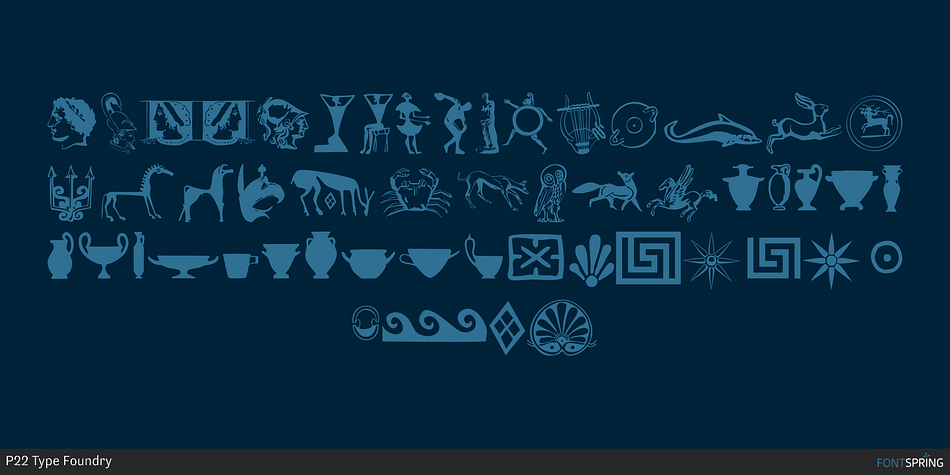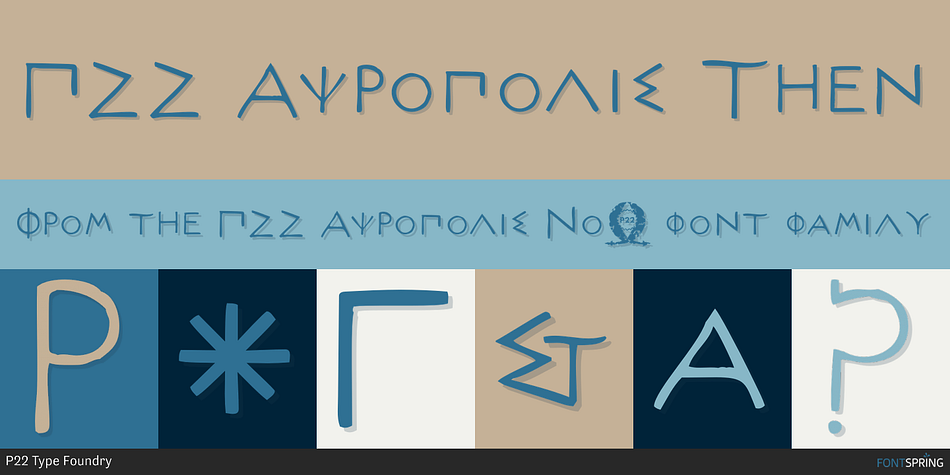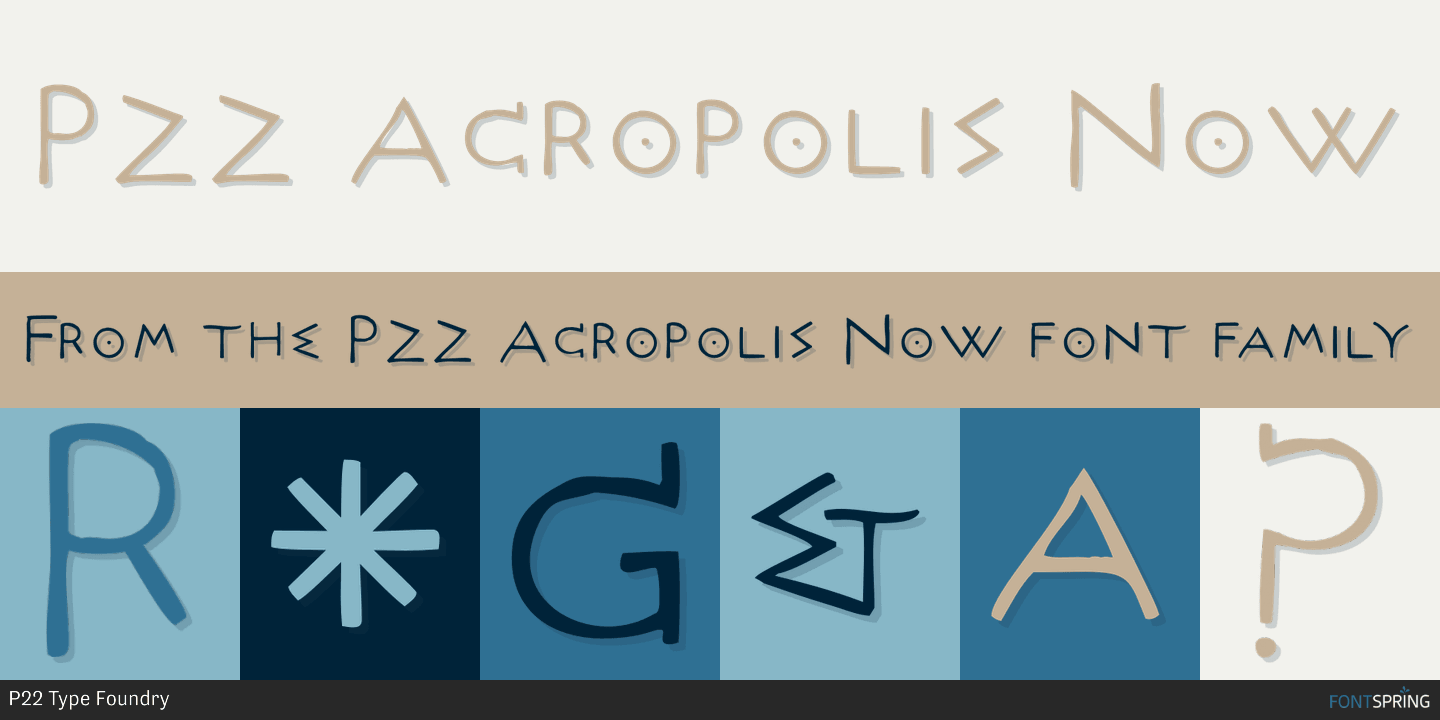
P22 Acropolis Now is a dingbat, novelty and foreign font family. This typeface has three styles and was published by P22 Type Foundry.
P22 Acropolis Now is P22’s tribute to the enduring contribution of Classical Greece to world culture. This set features two typefaces in the style of ancient Greek stone carvings (one modern, one of authentic Greek characters) and 52 graphic extras drawn from coinage and vase paintings.